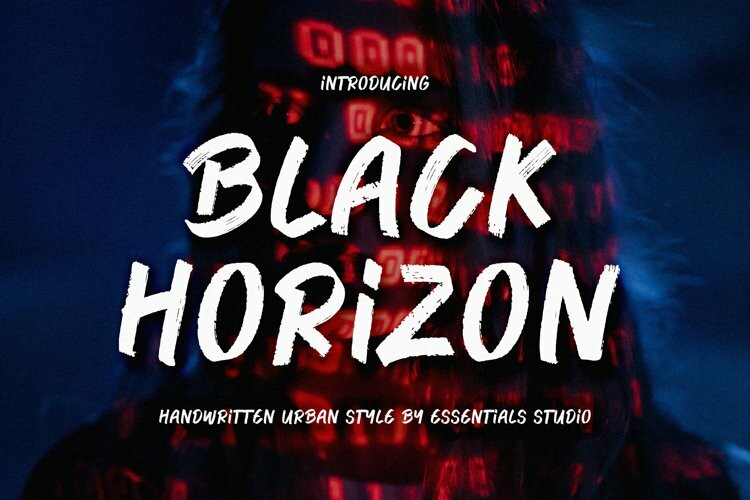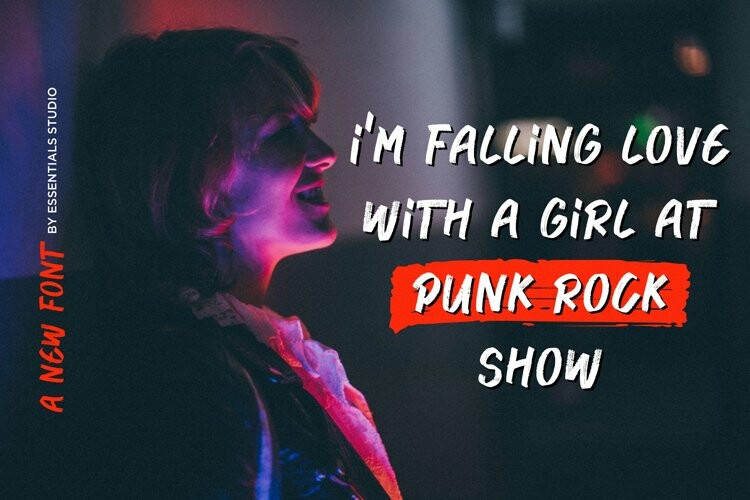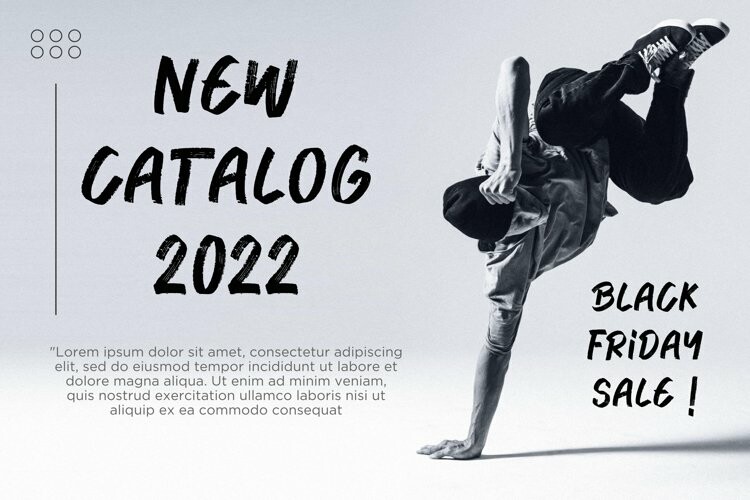
Black Horizon Font
Black Horizon FontBlack Horizon Is a A Handwritten Urban Style Font
Black Horizon is perfect for product packaging, branding project, megazine, social media, wedding, or just used to express words above the background.